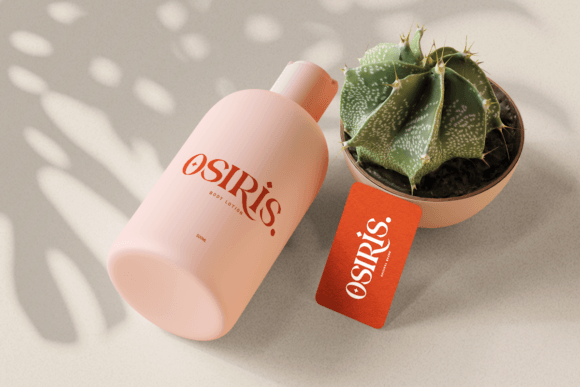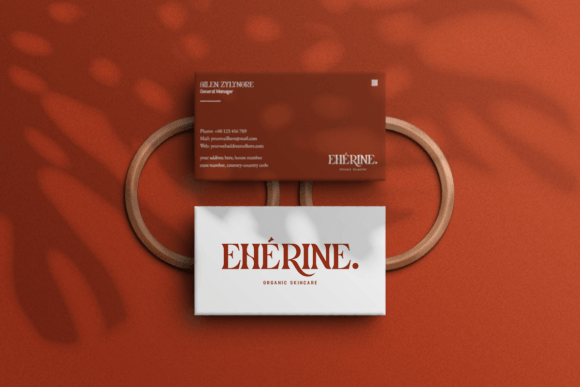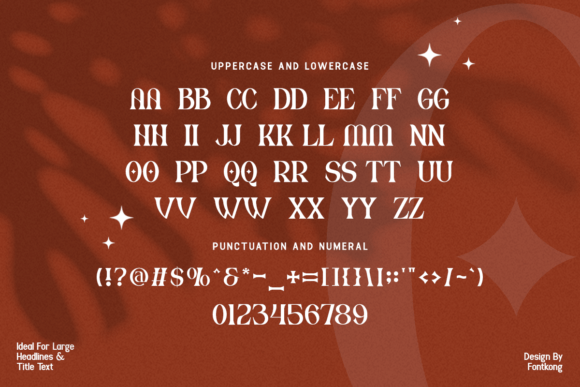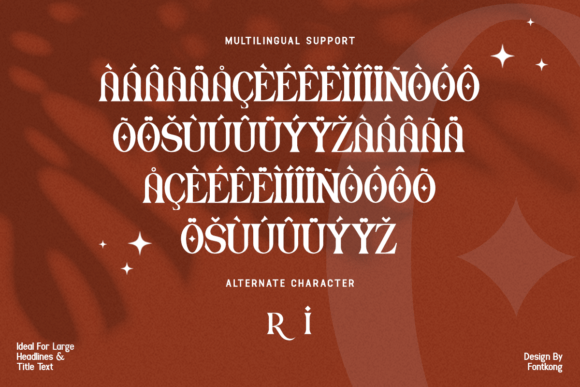
Discover the Elegance of Clarissa Serif Font: Elevate Your Designs with Sophistication
In the world of typography, few fonts manage to convey elegance and sophistication as effortlessly as Clarissa Serif Font. This beautifully crafted typeface is a perfect blend of delicate curves and well-defined serifs, making it an ideal choice for designers looking to create timeless designs that demand attention. Whether you’re working on a luxury brand, a stylish event invitation, or a high-end publication, Clarissa Serif Font is the perfect companion to add a touch of refinement and grace to your work.
One of the standout features of Clarissa Serif Font is its versatility. This font is not limited to a specific type of project; instead, it can be used across a wide range of designs, including branding, invitations, editorial layouts, and web design. Its adaptability makes it a valuable asset for designers who work on diverse projects and need a font that can keep up with their creative demands.
Perfect for Luxury Brands and High-End Publications
For luxury brands and high-end publications, Clarissa Serif Font offers a level of sophistication that is hard to match. Its elegant lines and precise serifs convey a sense of luxury and exclusivity, making it perfect for brands that want to stand out in a crowded market. Similarly, for publications that aim to offer a premium reading experience, Clarissa Serif Font provides a classic and refined look that enhances the content and appeals to readers who appreciate fine typography.
Effortless Elegance in Invitations and Event Designs
When it comes to invitations and event designs, Clarissa Serif Font truly shines. Its delicate yet assertive presence makes it ideal for wedding invitations, event posters, and other ceremonial designs. The font’s ability to convey elegance and class without appearing overly ornate or difficult to read ensures that your invitations and event designs are both beautiful and effective.
PUA Encoding for Easy Access to Glyphs and Swashes
Clarissa Serif Font is PUA (Private Use Area) encoded, which is a significant advantage for designers. PUA encoding allows for easy access to all the glyphs and swashes included with the font, enabling you to add decorative touches to your designs without needing specialized software or complicated workarounds. This feature not only saves time but also opens up a world of creative possibilities, allowing you to experiment with different styles and effects to find the perfect look for your project.
Enhancing Web Design with Clarissa Serif Font
While traditionally, serif fonts have been associated with print design, Clarissa Serif Font also holds its own in digital environments. Its clear and readable design makes it suitable for web design, especially for websites that aim to convey a sense of luxury, elegance, or professionalism. When used for headings, body text, or even as part of a brand’s digital identity, Clarissa Serif Font can significantly enhance the aesthetic appeal and readability of a website.
Tips for Getting the Most Out of Clarissa Serif Font
- Experiment with Sizes: Clarissa Serif Font maintains its elegance across various sizes, but experimenting with different sizes can help you find the perfect balance for headings and body text.
- Play with Glyphs and Swashes: Take advantage of the PUA encoding to add unique touches to your designs. Glyphs and swashes can add personality and flair to your typography.
- Pair with Complementary Fonts: While Clarissa Serif Font is stunning on its own, pairing it with complementary fonts can create visually appealing contrasts and hierarchies in your designs.
- Consider Line Spacing: For optimal readability, especially in longer texts, ensure you adjust line spacing appropriately to let Clarissa Serif Font breathe.
Clarissa Serif Font is more than just a typeface; it’s a design statement. With its elegant curves, precise serifs, and versatile nature, it offers designers a tool to elevate their work to new heights of sophistication and elegance. Whether you’re crafting a luxury brand’s identity, designing an exclusive event invitation, or laying out a high-end publication, Clarissa Serif Font is your partner in creating designs that are not only beautiful but also timeless. By incorporating Clarissa Serif Font into your projects, you’re not just choosing a font; you’re embracing a style that promises to make your work stand out with class and distinction.